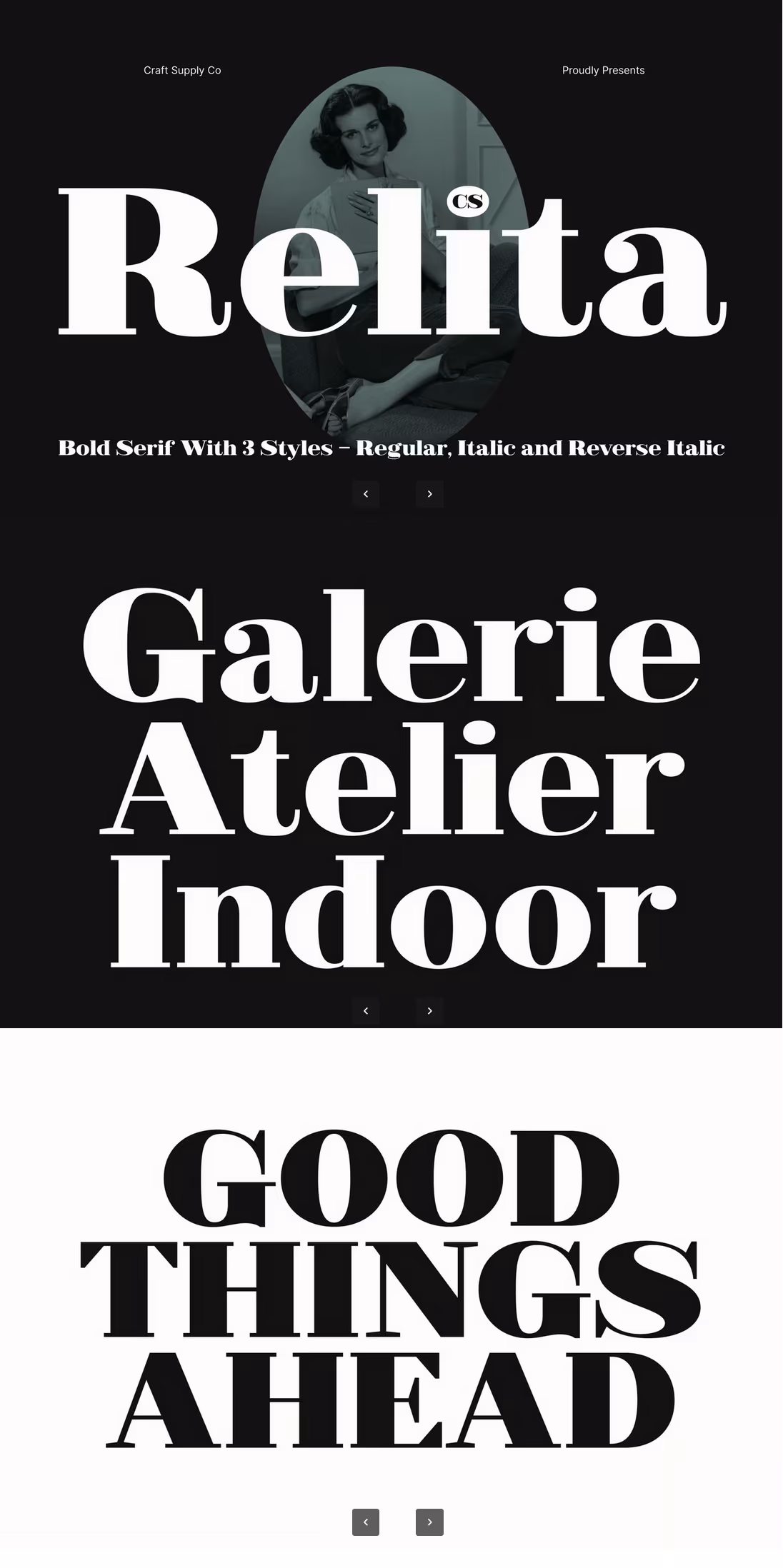
CS Relita – Retro Elegance with a Fresh Modern Twist A Classic Serif Revived with 70s Charm This font brings the warmth of retro typography into the modern era. Inspired by classic 70s serif styles, this font blends expressive curves, nostalgic detailing, and refined proportions. It captures the lively spirit of retro design while delivering the clarity and sophistication needed for today’s creative work.
Retro Flair with Modern Refinement Balancing nostalgia and freshness, this font pairs retro shapes with subtle contemporary touches. Its smooth serifs, gentle contrast, and flowing letterforms create an inviting rhythm that instantly elevates any layout. The result is a typeface that feels both timeless and current perfect for designers seeking style with personality.
Perfect for Branding, Posters, and Retro Events From classic branding identities to expressive posters and retro-themed event graphics, this font performs beautifully across a wide range of applications. Its distinctive style makes headlines more engaging, logos more memorable, and editorial spreads more charismatic. Whether you’re aiming for vintage authenticity or a modern throwback look, this font delivers.
Versatile, Charming, and Full of Character This font adapts easily to both subtle and showy designs. Use it for titles, packaging, invitations, merch, or any project that needs a touch of nostalgic elegance. With its stylish serif curves and warm retro essence, this font gives your designs a unique blend of classic charm and fresh creative energy.